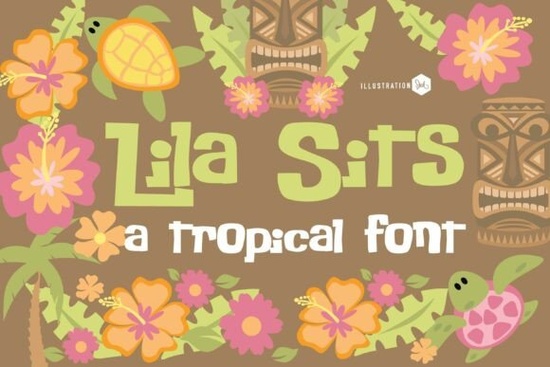
If you're looking for a bold, playful font that feels handcrafted and full of personality, Pn Lila Sits Fn Font stands out in the world of display typefaces. It’s not just another stylish lettering this one has character. With uneven edges, quirky cuts, and a slightly irregular shape, it mimics the look of paper collages or woodblock prints. That handmade feel makes it perfect for projects where warmth and fun matter more than perfection.
What Makes Pn Lila Sits So Unique?
Unlike clean digital fonts, Lila Sits embraces imperfection. Its chunky letterforms have subtle asymmetries and unexpected breaks, giving each character a little surprise. You’ll notice how uppercase and lowercase letters mix in unpredictable ways some caps sit oddly on baseline, others tilt just slightly. This isn’t a flaw; it’s the charm. The style draws inspiration from tiki culture, beachside signs, and even kids’ art projects, making it ideal for tropical themes or anything with a lighthearted vibe.
It works best when you want to add energy to your design. Whether you’re creating summer party invitations, island-themed branding, or playful packaging for children’s products, this font brings an instant sense of fun. The bold strokes grab attention without shouting, and its organic texture fits well with textured backgrounds or layered designs.
Where Can You Use This Font?
- Summer events: Beach parties, luau themes, or tropical birthday invites
- Branding: Fun brands targeting younger audiences or those with a laid-back aesthetic
- Crafts & print-on-demand: T-shirts, mugs, tote bags, and stickers with a handmade look
- Children’s materials: Storybooks, classroom posters, or activity sheets
- Decor & signage: Wall art, menu boards, or event banners
Because it’s a display font, it’s not meant for long blocks of text. Instead, use it as a headline, logo, or focal point. Pair it with simpler, neutral fonts like Cinzel or Western Bullhead to balance the visual weight while keeping the theme consistent.
How Does It Compare to Other Fonts?
If you’ve worked with similar fonts before, you might notice that Pn Lila Sits has a more relaxed, less rigid structure than something like Shadow Block. While Shadow Block leans into strong geometric shapes, Lila Sits feels more spontaneous like someone cut each letter by hand and didn’t worry about symmetry. That difference is what makes it stand out in creative projects where authenticity matters.
For fans of bold, expressive type, exploring other unique options can help build a versatile toolkit. If you like the playful edge of Lila Sits, you might also enjoy Cartius, which offers a similar energy with a slightly more structured feel.
Why Designers Love This Font
Designers appreciate fonts that don’t blend in. Lila Sits gives your work a distinctive identity especially useful if you’re selling on platforms like Etsy, Printful, or Redbubble. Its tropical flair adds instant context, helping customers instantly “get” the mood of your product. Plus, it works across formats: web graphics, social media posts, print files, and even digital presentations.
Final Thoughts
When you need a font that feels alive something that doesn’t just say words but tells a story Pn Lila Sits Fn Font delivers. It’s not just a tool; it’s a mood booster for your designs. Whether you’re crafting a birthday card or building a brand identity, this one brings sunshine and joy to every project.